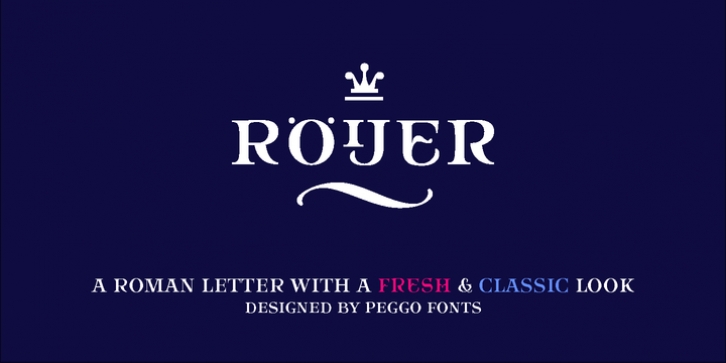
Roijer was designed by Pedro Gonzalez Jorquera and published by PeGGO Fonts. Roijer contains 4 styles and family package options.
"Röijer" was born from a branding exercise done with "high care", graphically developed thanks to the valuable help of designers Marcela Aguilera & Pedro Gonzalez, each letterform and every type design process was worked as a typographic jewel, as a strong bond between classical and fresh concepts (with a Lombardic and Art Nouveau touch).
Röijer puts a dual capital model in your hands; a classic Roman and a fresh contemporary alternative, on each letter: the first located in a lowercase box looks formal and sober, while the uppercase box shows a glamorous and more daring look, ideal to being use at specific moments only. Röijer combine elegance and audacity in a very magistral way.
It has 2 variants with 541 glyphs each one; a normal and a volumetric one, all with an ornaments set and a decorative objects set. Ideas that be useful not only for branding design but also for titling, headline composition, label design, fashion and luxury stuff.
· Roijer Regular
· Roijer II
· Roijer Ornaments
· Roijer Dingbats